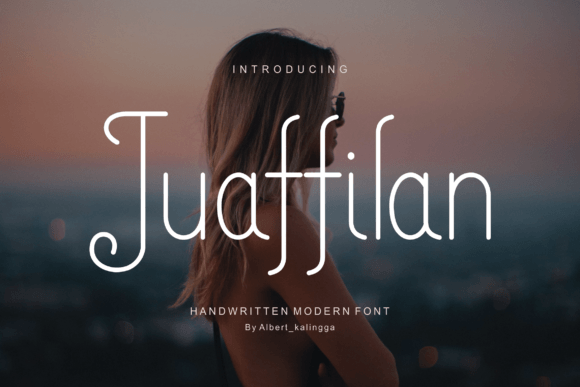
Behold, Juaffilan Font, a captivating script font that dances across the digital realm, leaving a trail of visual enchantment! Crafted with meticulous precision and an eye for detail, this font is a symphony of elegance and innovation. Its graceful curves and flowing lines embody the essence of artistry, adding a touch of sophistication to any design concept.
Immerse yourself in the world of Juaffilan, where boundless creativity meets unparalleled aesthetics. This font is a visual masterpiece that transcends the ordinary, elevating your designs to new heights. Whether you seek to create logos that radiate power and distinction or craft captivating headlines that command attention, Juaffilan is your steadfast companion.
With Juaffilan, you unlock a world of possibilities. Let your imagination soar as you explore the endless applications of this versatile font. Craft eye-catching social media graphics that captivate your audience, design stunning posters that ignite conversations, or create logos that leave a lasting impression. The possibilities are boundless, and the results are always extraordinary.
Juaffilan is not just a font; it's an artistic expression that breathes life into your creations. Its essence is woven into every letterform, each stroke meticulously crafted to convey emotion and depth. Embrace the allure of Juaffilan and embark on a creative journey where your designs transcend the mundane and enter the realm of the truly exceptional.